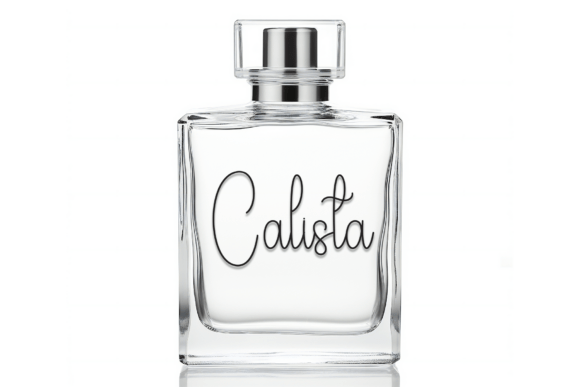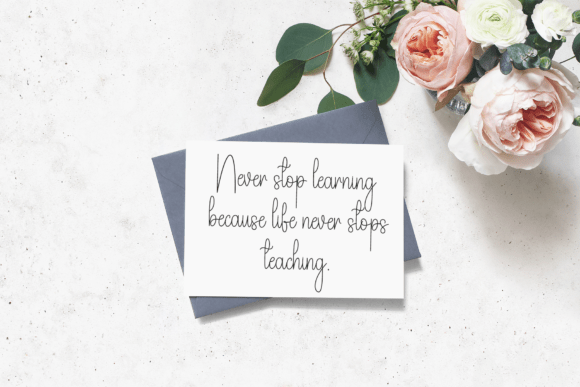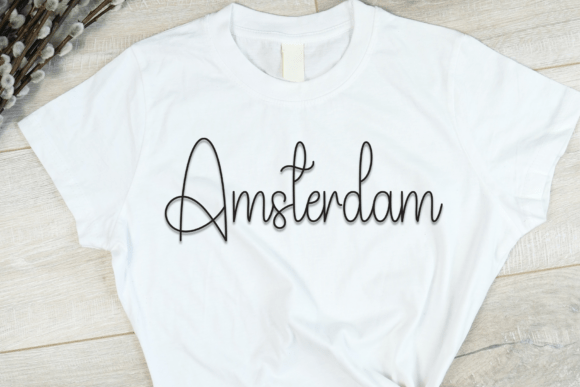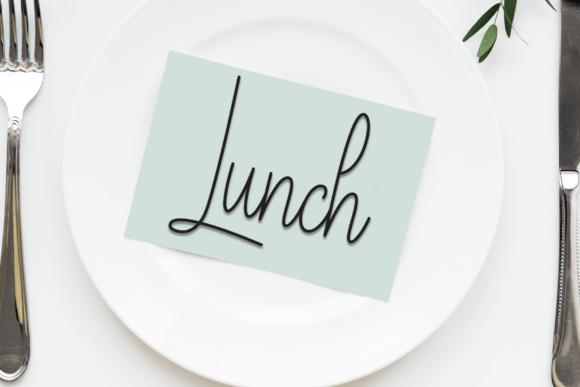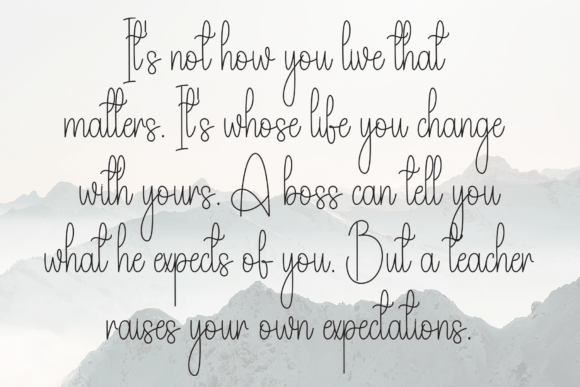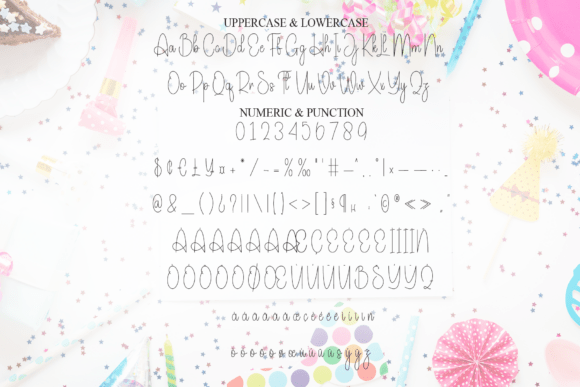
Introducing Birthday Font: The Ultimate Choice for Elegant and Playful Designs
Are you looking for a font that can add a touch of elegance and playfulness to your designs? Look no further than Birthday Font, a stylish handwritten script font that is sure to capture the essence of any celebration. With its flowing curves and natural rhythm, Birthday Font is the perfect choice for designers and crafters who want to add a personal and charming touch to their projects.
The Characteristics of Birthday Font
Birthday Font is a beautifully designed handwritten script font that boasts a range of characteristics that make it stand out from the crowd. Its flowing curves and natural rhythm give it a sense of movement and fluidity, making it perfect for designs that require a touch of elegance and sophistication. The font’s strokes are carefully crafted to create a sense of warmth and friendliness, making it ideal for projects that require a personal touch.
Uses of Birthday Font
Birthday Font is a versatile font that can be used in a wide range of projects, including:
- Invitations: Whether you’re designing invitations for a birthday party, wedding, or other celebration, Birthday Font is the perfect choice. Its elegant and playful design adds a touch of sophistication and whimsy to any invitation.
- Branding: Birthday Font is also perfect for branding projects, such as logos, business cards, and letterheads. Its unique and stylish design helps to create a lasting impression and sets your brand apart from the competition.
- Social Media: Add a touch of elegance and playfulness to your social media posts with Birthday Font. Whether you’re designing graphics for Instagram, Facebook, or Twitter, this font is sure to make your posts stand out.
Why Choose Birthday Font?
So why choose Birthday Font over other fonts? Here are just a few reasons why this font is a cut above the rest:
- Elegance: Birthday Font is an elegant font that adds a touch of sophistication to any design.
- Playfulness: Despite its elegance, Birthday Font also has a playful side, making it perfect for designs that require a touch of whimsy.
- Versatility: Birthday Font can be used in a wide range of projects, from invitations to branding and social media.
- Easy to Read: Despite its elegant design, Birthday Font is easy to read, making it perfect for designs that require a clear and concise message.
Tips for Using Birthday Font
Here are a few tips for using Birthday Font in your designs:
- Use it sparingly: While Birthday Font is a beautiful font, it can be overwhelming if used too much. Use it sparingly to add a touch of elegance and playfulness to your designs.
- Pair it with other fonts: Birthday Font pairs well with other fonts, such as sans-serif fonts. Experiment with different font combinations to find the perfect look for your design.
- Experiment with colors: Birthday Font looks great in a range of colors, from bold and bright to soft and pastel. Experiment with different colors to find the perfect look for your design.